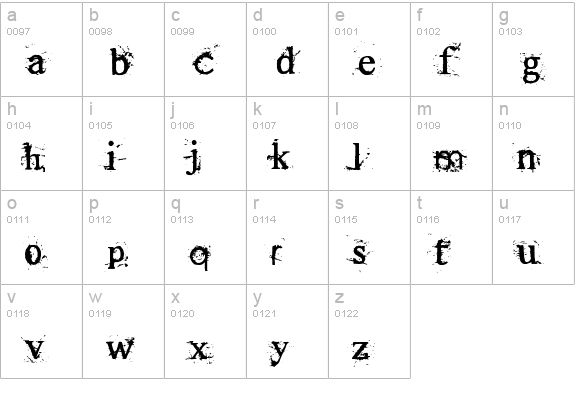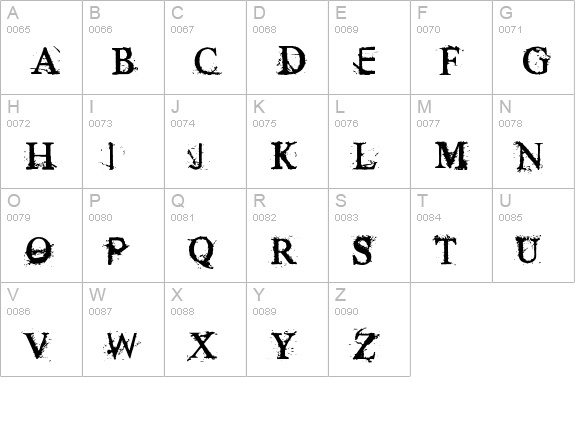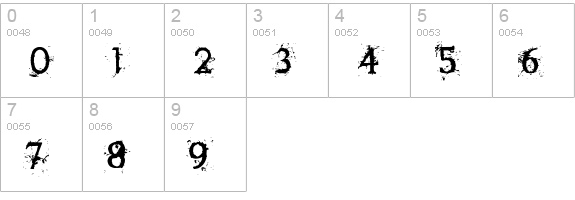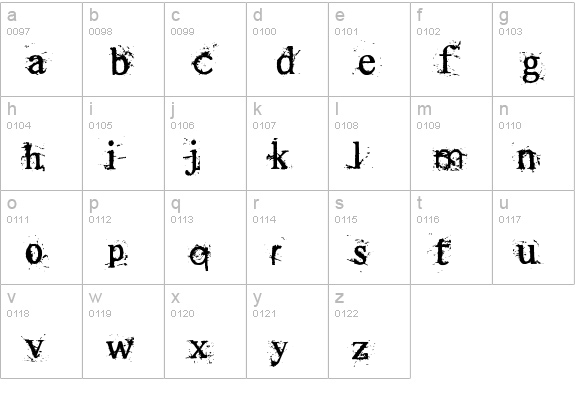
Rugged type Font Details
The Rugged type font exudes a bold and robust aesthetic, perfect for adding a touch of ruggedness to your designs. With its jagged edges and strong presence, this font is ideal for creating eye-catching headlines, logos, and posters that demand attention. Whether you're working on a project that requires a tough and gritty look or simply want to add some edge to your typography, the Rugged font has got you covered. Best of all, this font is available for free download at FontsMarket.com. So go ahead and unleash your creativity with this versatile and powerful typeface. Let the Rugged font be your go-to choice for projects that need a touch of rugged charm.